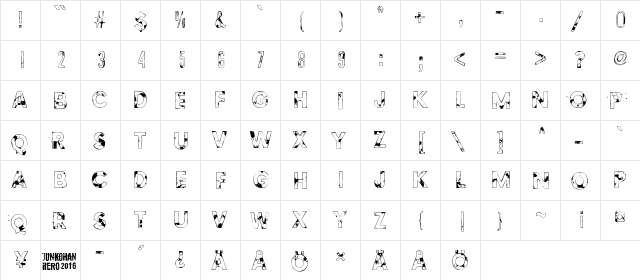
Methods of escape Regular
Methods of escape is a composed and adaptable typeface that performs quietly and consistently across a wide range of design contexts.